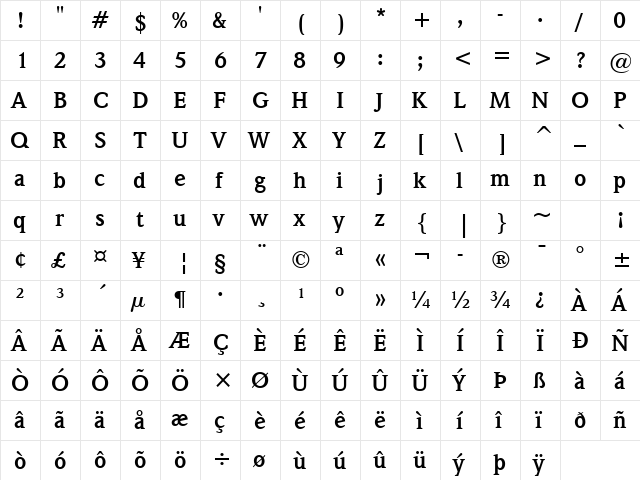
Weidemann Bk BT Bold Font Preview
Weidemann Bk BT Bold
Weidemann Bk BT Bold Font Details
Design Context for Weidemann Bk BT Typeface
Weidemann Bk BT is a composed and adaptable typeface that performs quietly and consistently across a wide range of design contexts. The heavy weight commands attention and anchors typographic hierarchies.